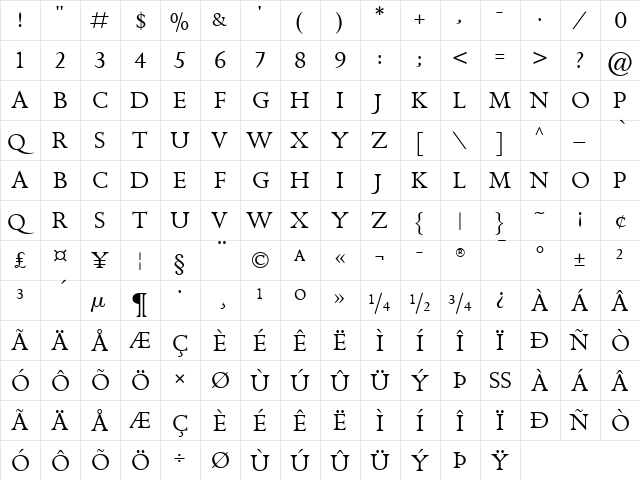
Golden Cockerel Titling ITC Regular
Design Context for Golden Cockerel Titling ITC Typeface
Golden Cockerel Titling ITC is a composed and adaptable typeface that performs quietly and consistently across a wide range of design contexts.